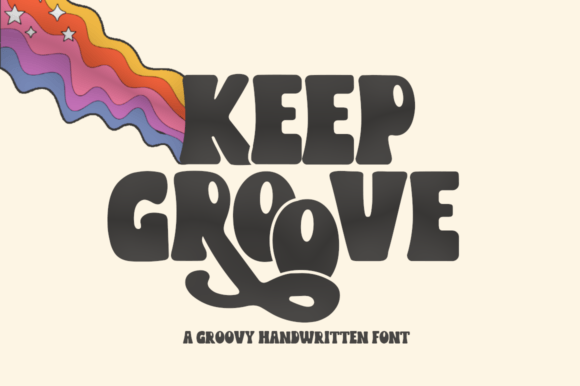
Introducing Keep Groove Font - the Best Font for Display Text that will bring your designs to life. Created by the talented AM Designs team, Keep Groove is a display font family that will add a touch of fun and playfulness to any project.
With its unique style and captivating appeal, Keep Groove is the perfect choice for those who want to add a touch of originality to their designs. This font embodies a cheerful and lighthearted vibe, making it the ideal choice for kids' activities, school projects, and birthday cards.
But Keep Groove isn't just for kids - it's versatile enough to be used for a wide range of projects. Whether you're creating food posters, clothing designs, or even branding materials, Keep Groove will add a unique and eye-catching element that will set your designs apart.
One of the things that sets Keep Groove apart from other display fonts is its ability to evoke emotion. With its playful and fun-loving nature, Keep Groove is perfect for designs that aim to bring joy and happiness to people's lives. Whether you're creating a logo or a social media graphic, Keep Groove will help you connect with your audience on an emotional level.